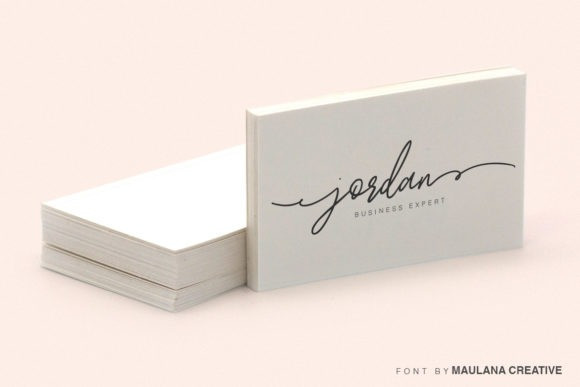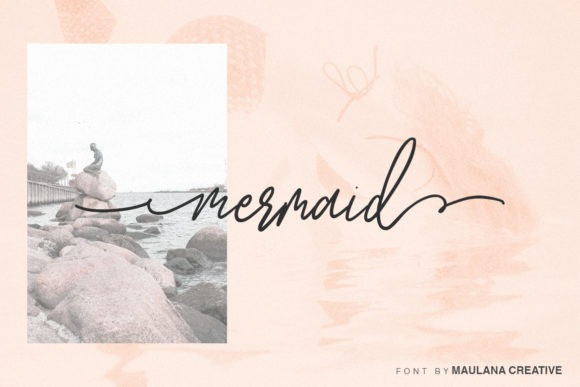
Sofia Script Font
Introducing Sofia script font! It allows you to create stunning and easy hand-lettering in an instant. Ideal for the logo, quotes, wedding, product label/packaging, fashion, letter, advertising, invitation, poster, merchandise, greeting cards, etc